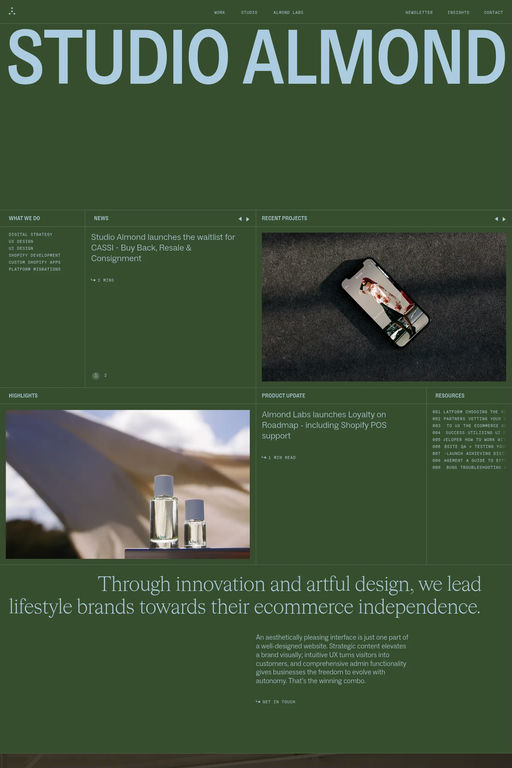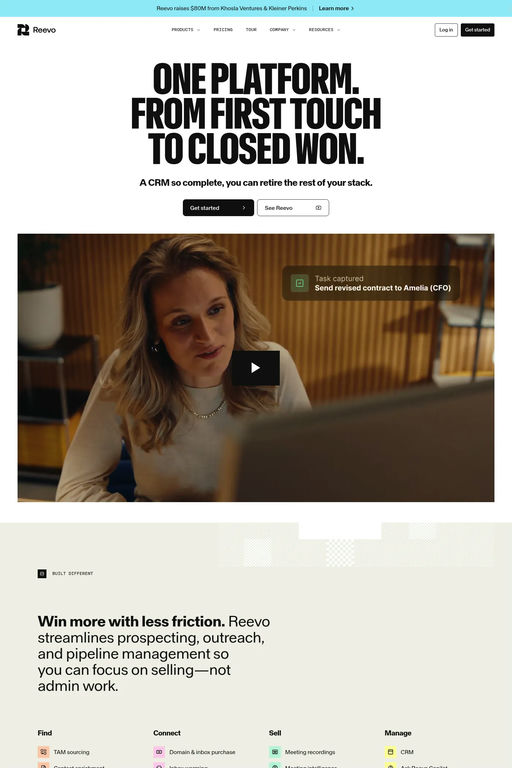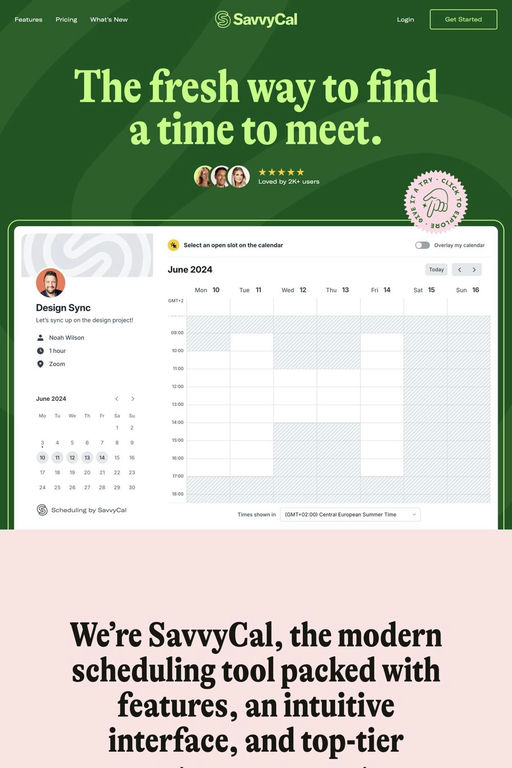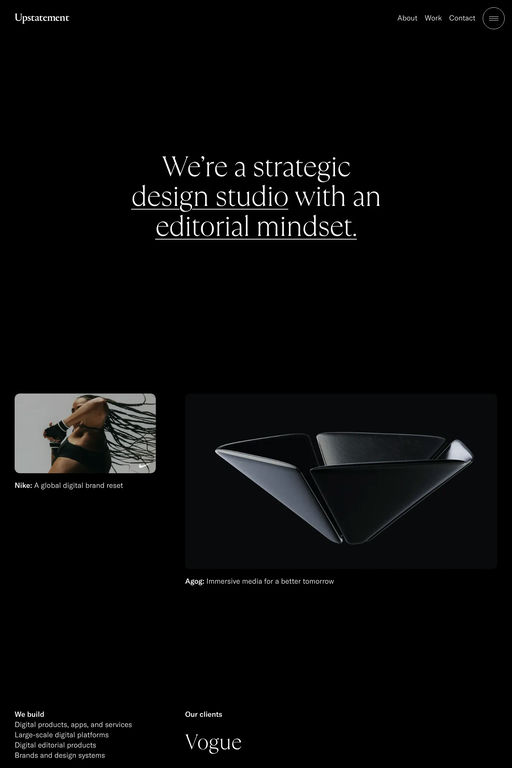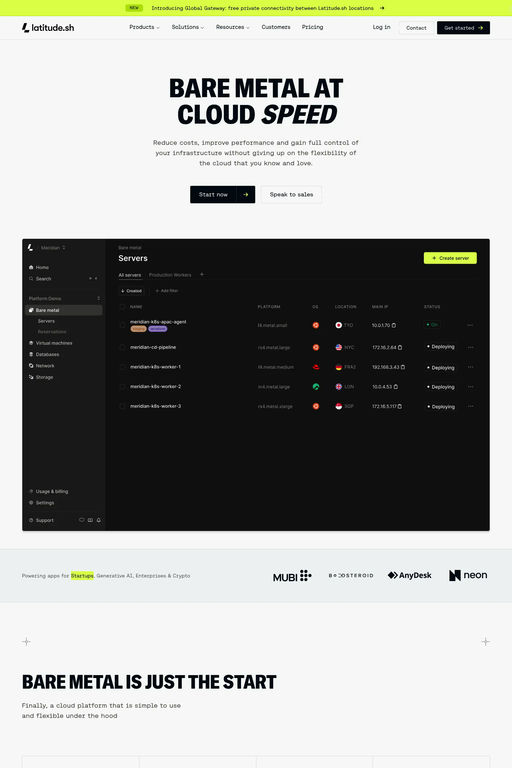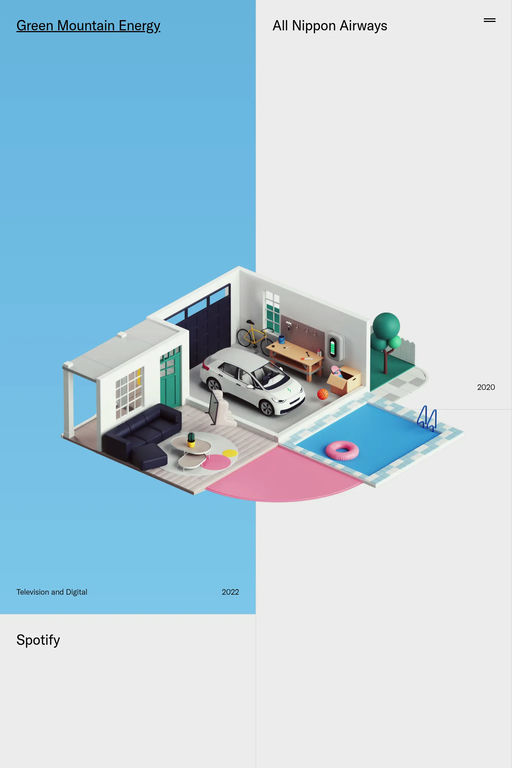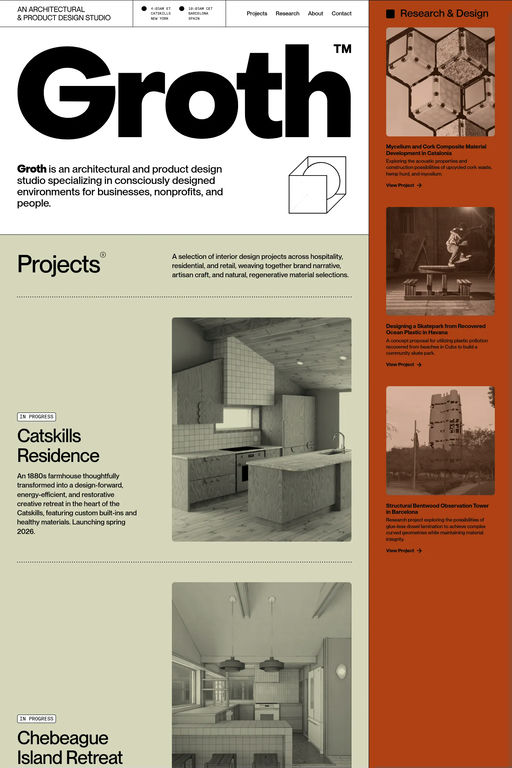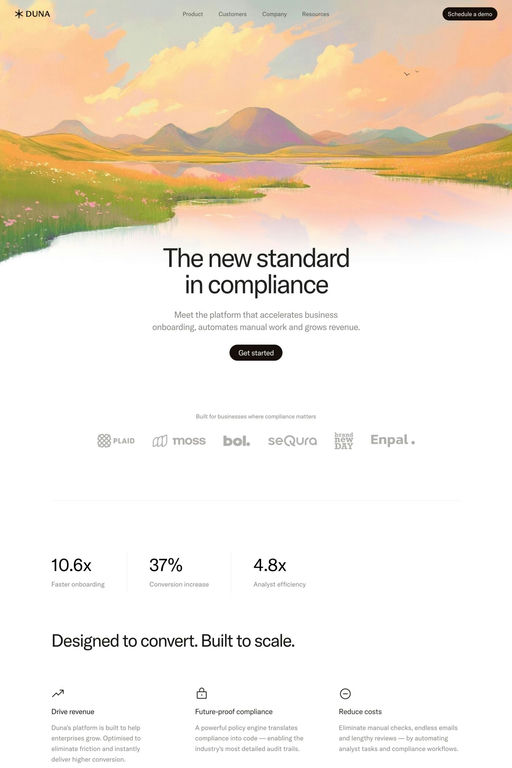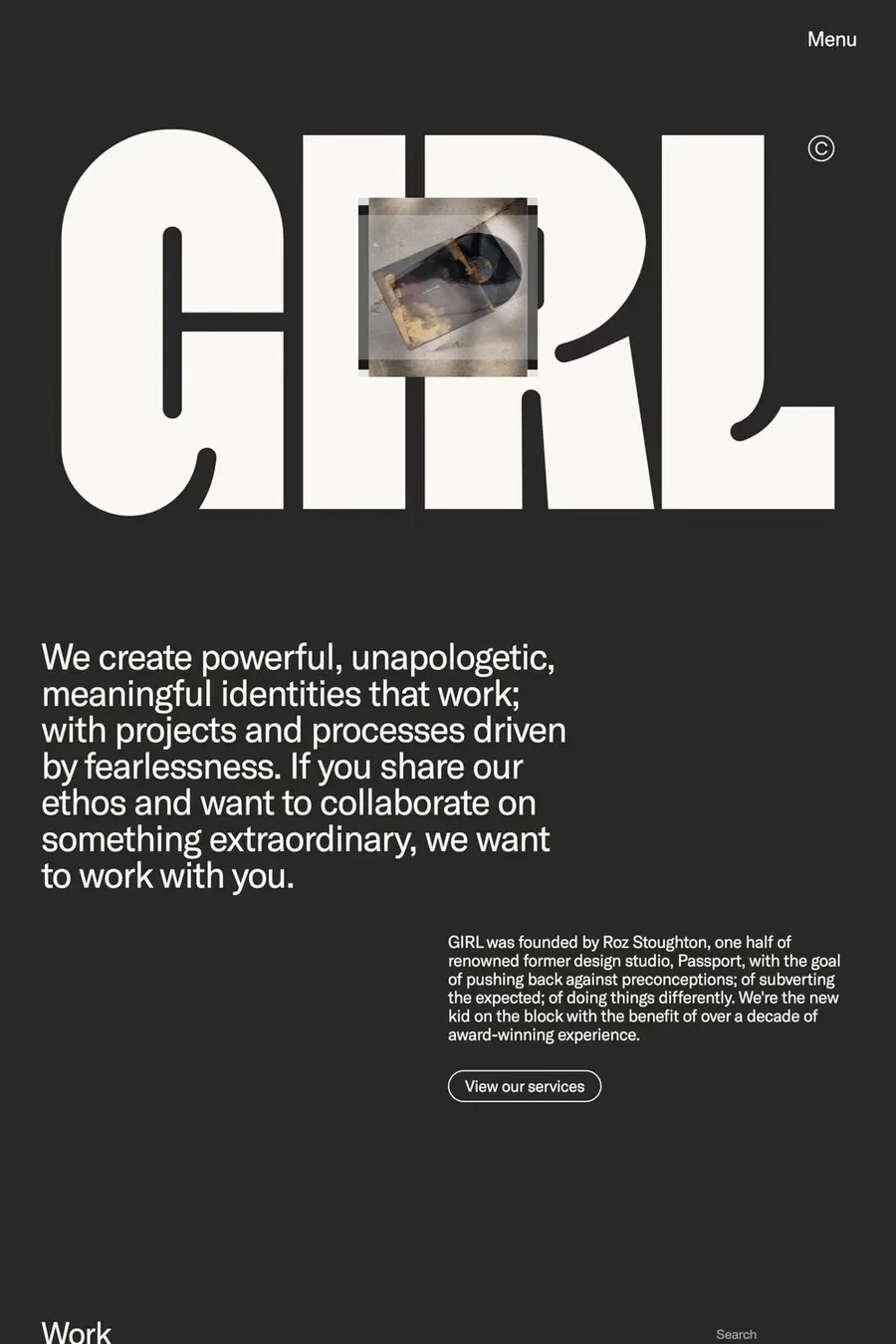
GT America is a sans-serif typeface from Grilli Type.
GT America is the missing bridge between 19th century American Gothics and 20th century European Neo-Grotesk typefaces. It uses the best design features from both traditions in the widths and weights where they function optimally.